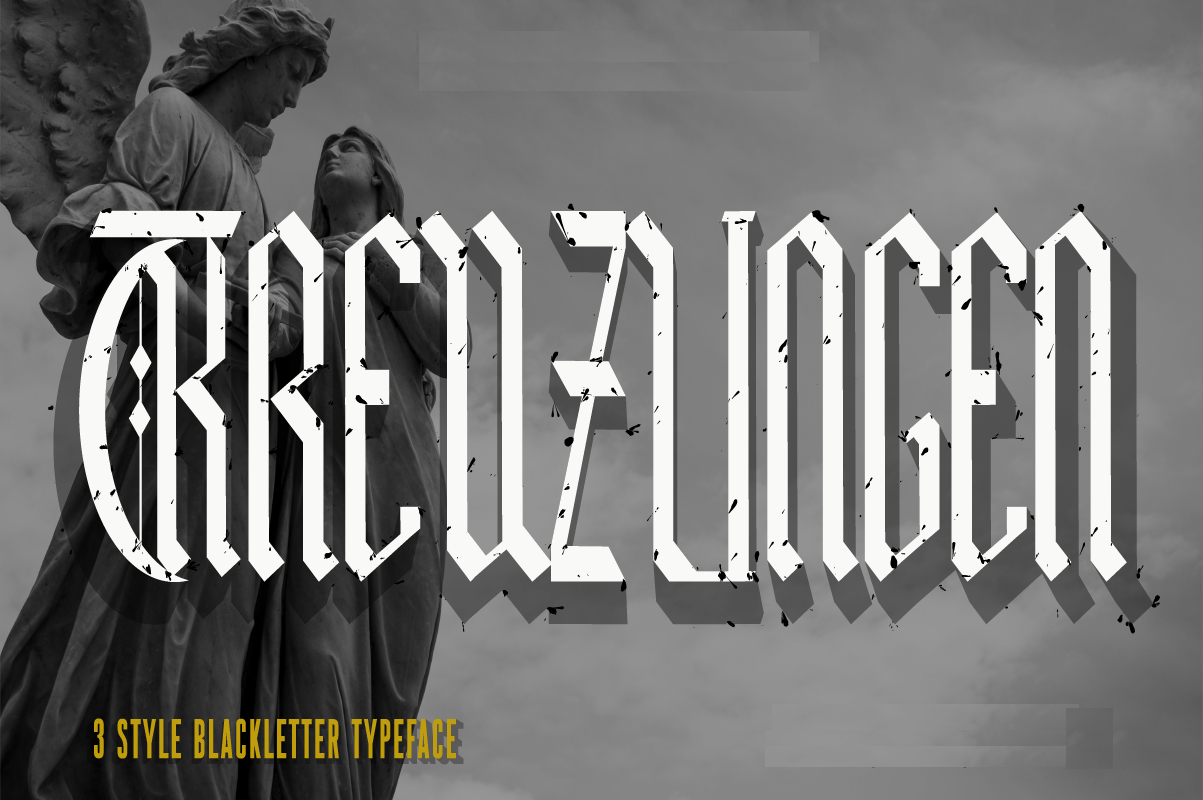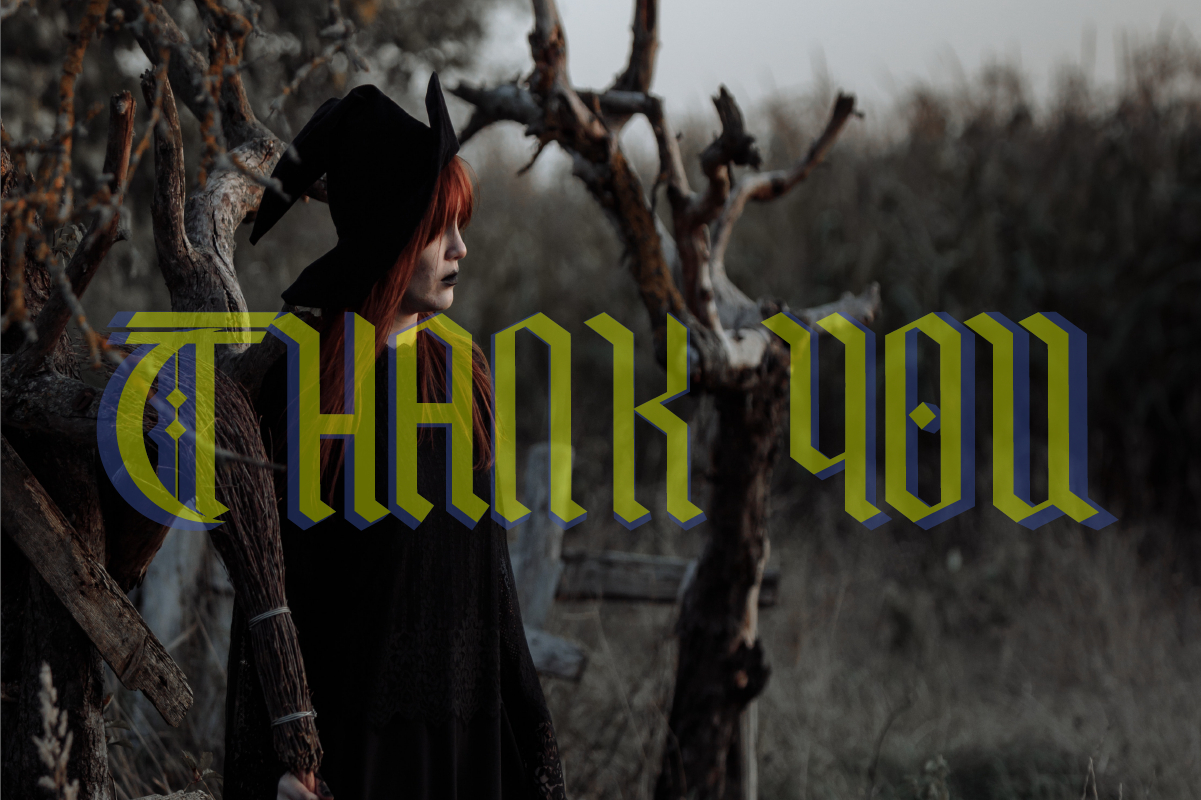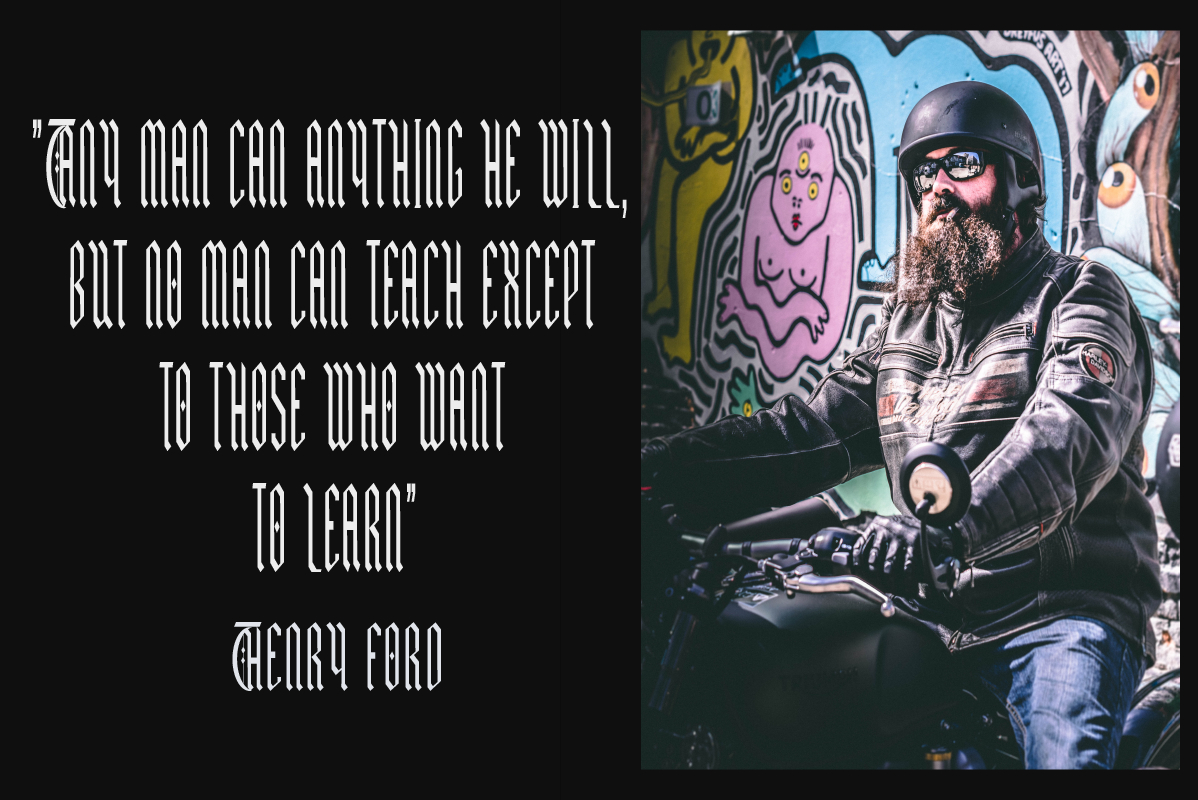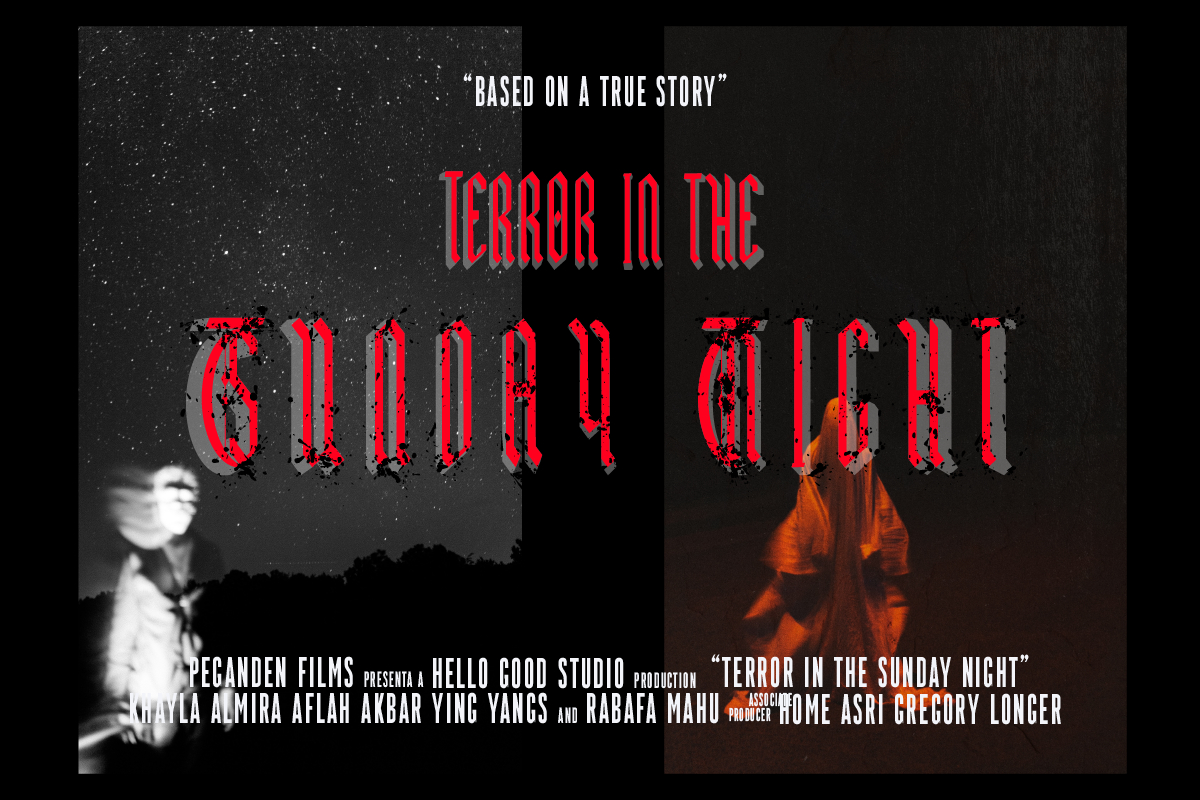
About Kreuzlingen Font
Kreuzlingen is a simple and authentic blackletter font. Perfect for creating eye-catching logotypes for metal bands, headings, titles, and displays. This font is ideal for metal or dark digital craft projects and will surely leave a lasting impression on your audience.